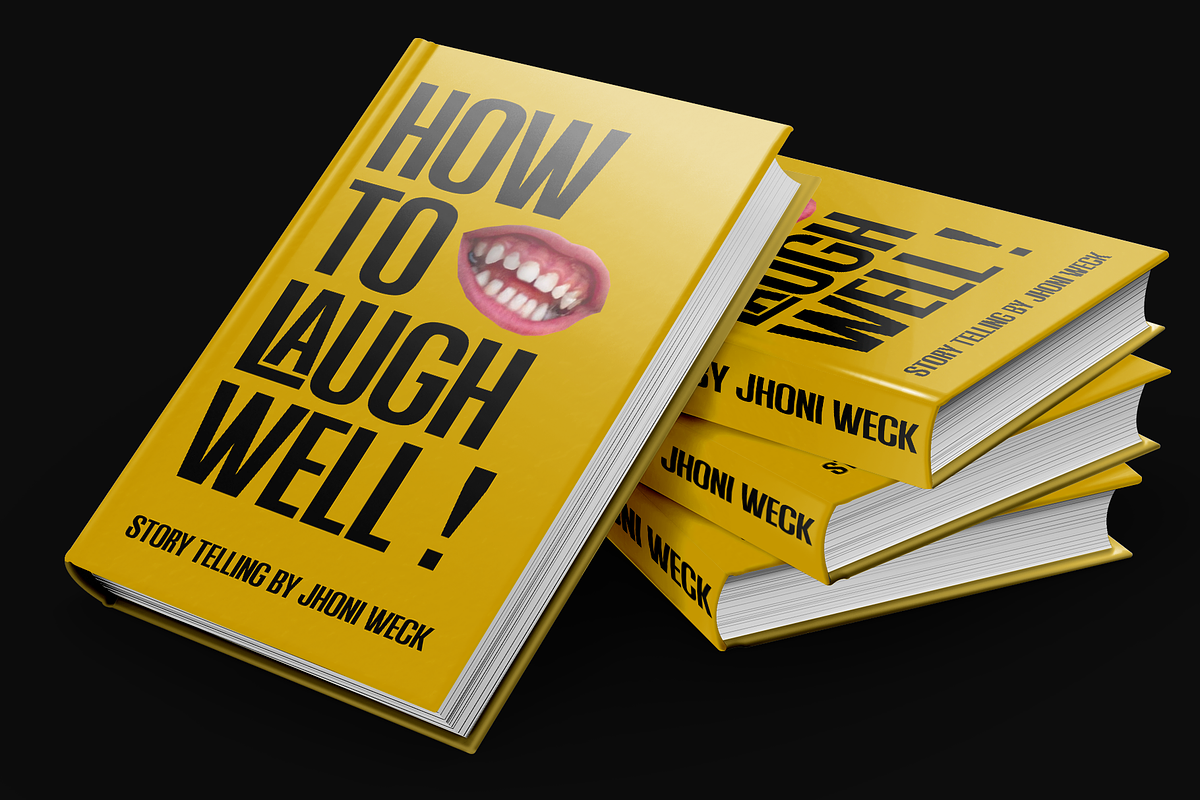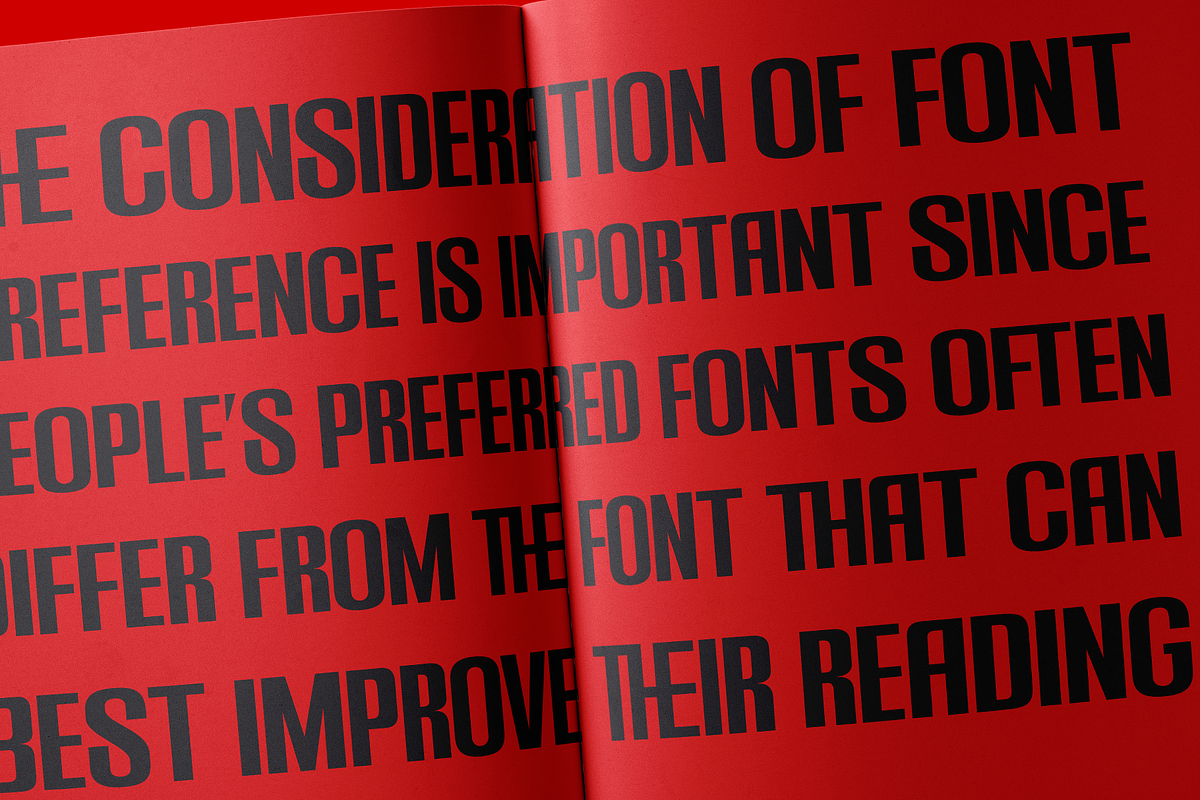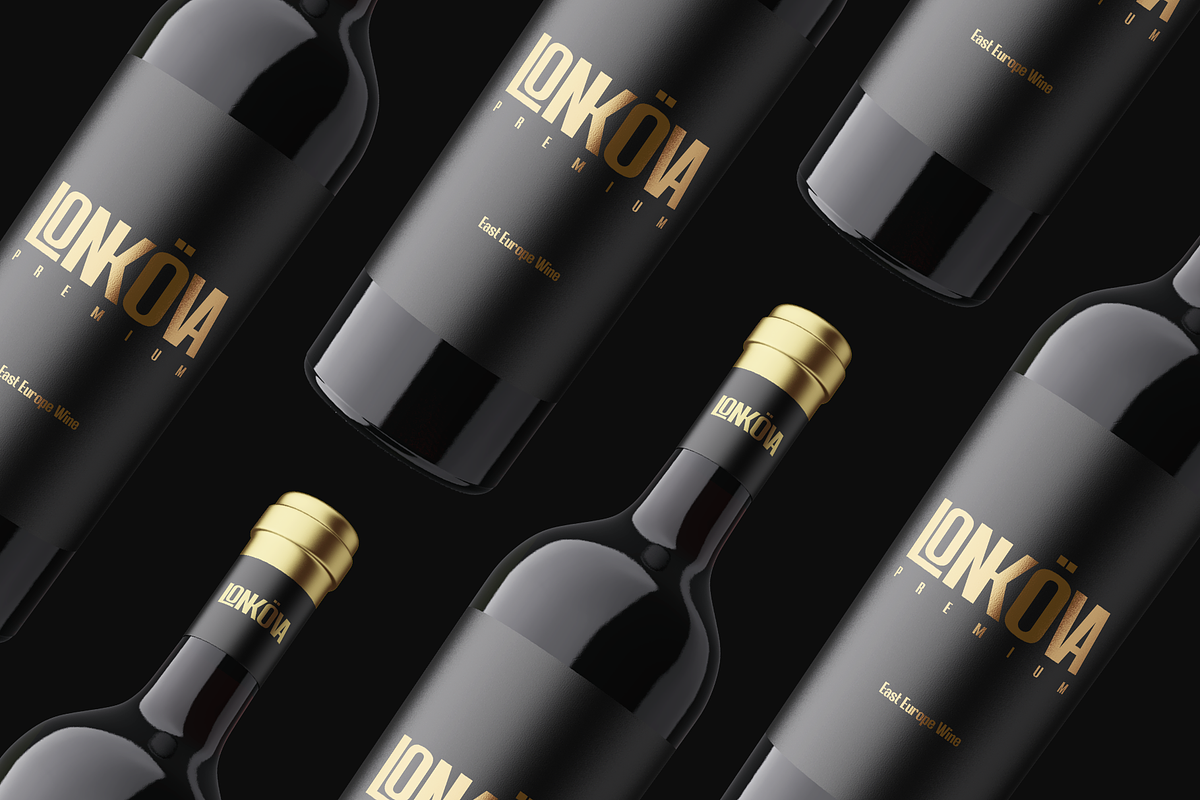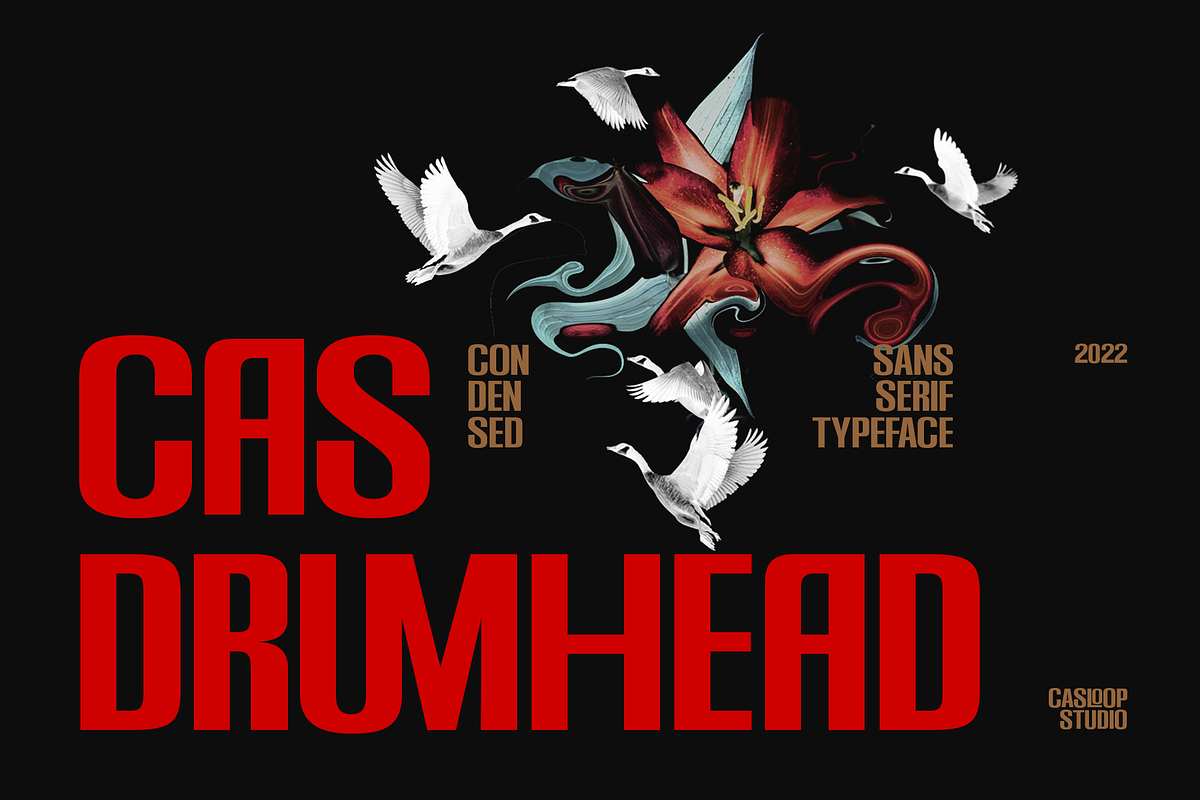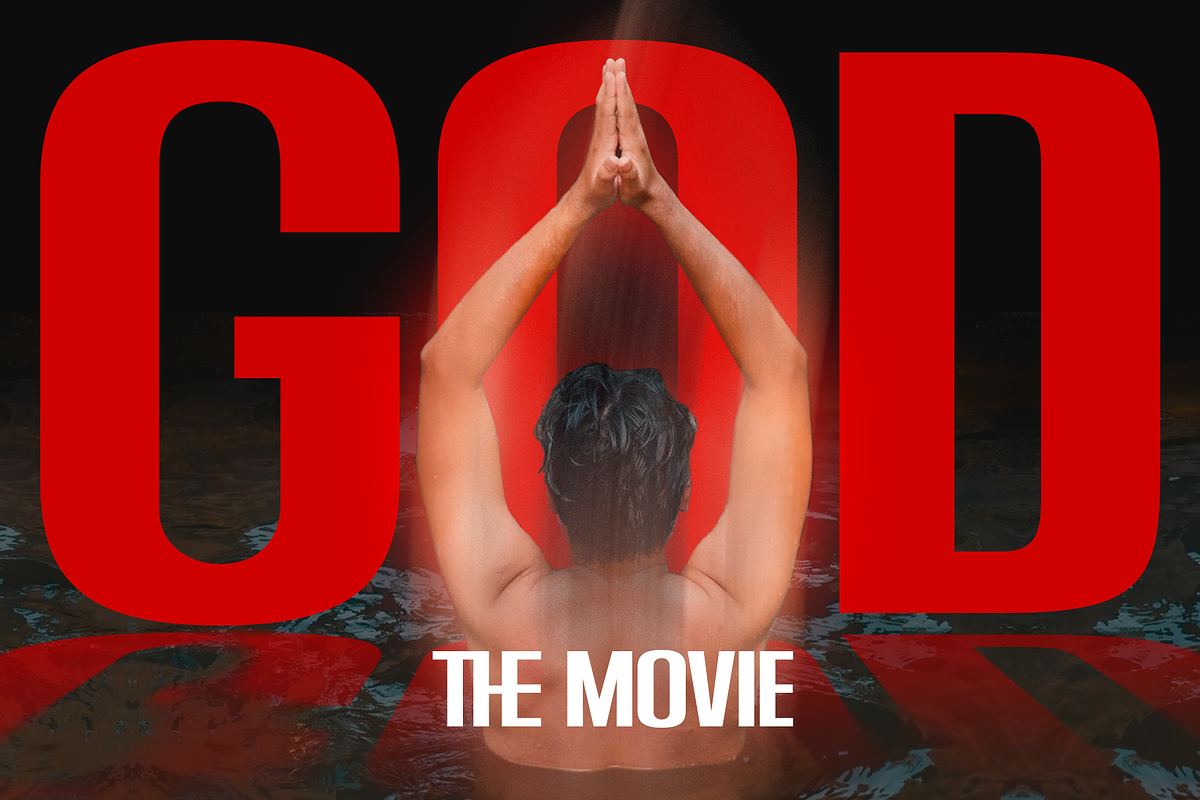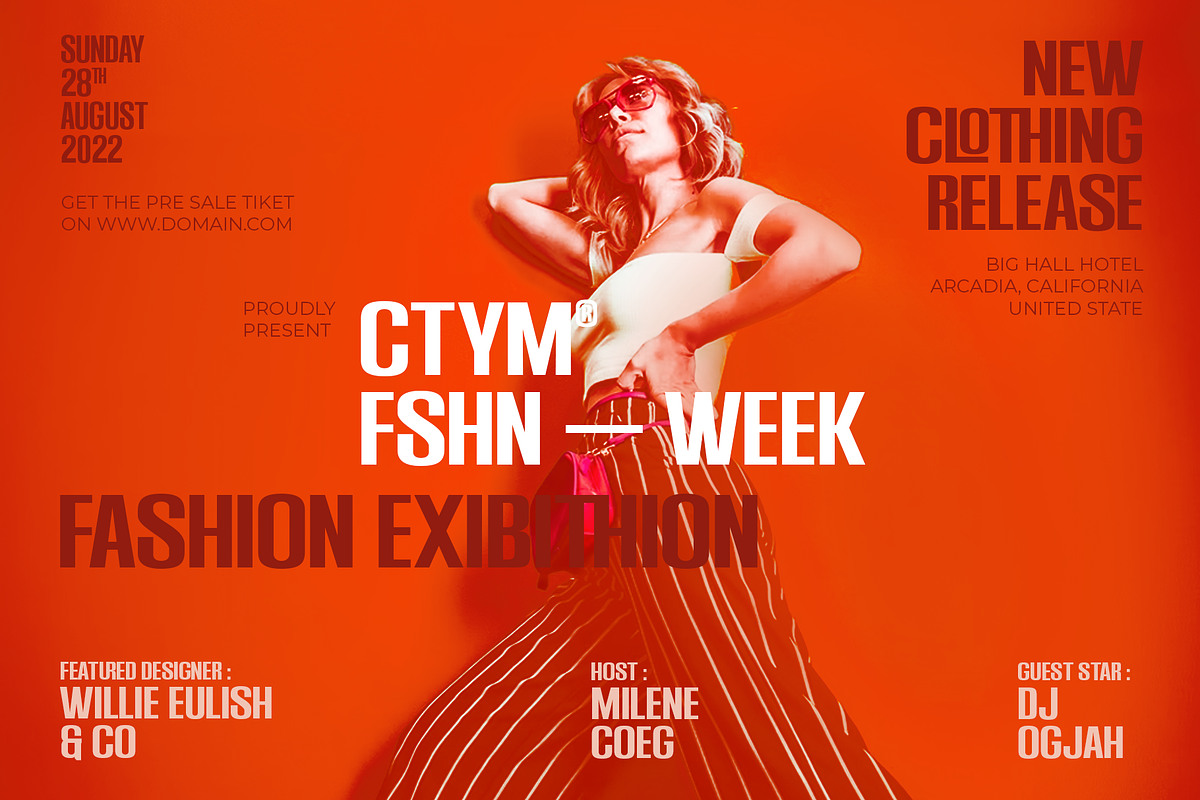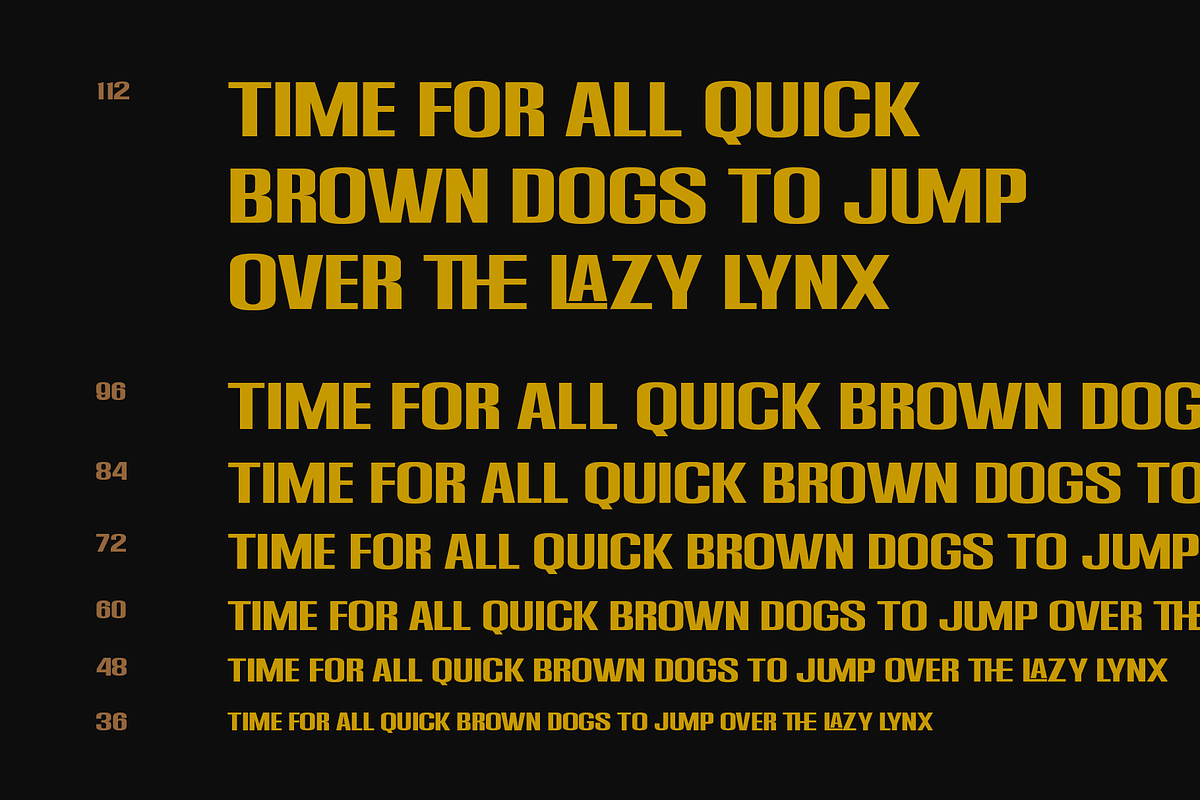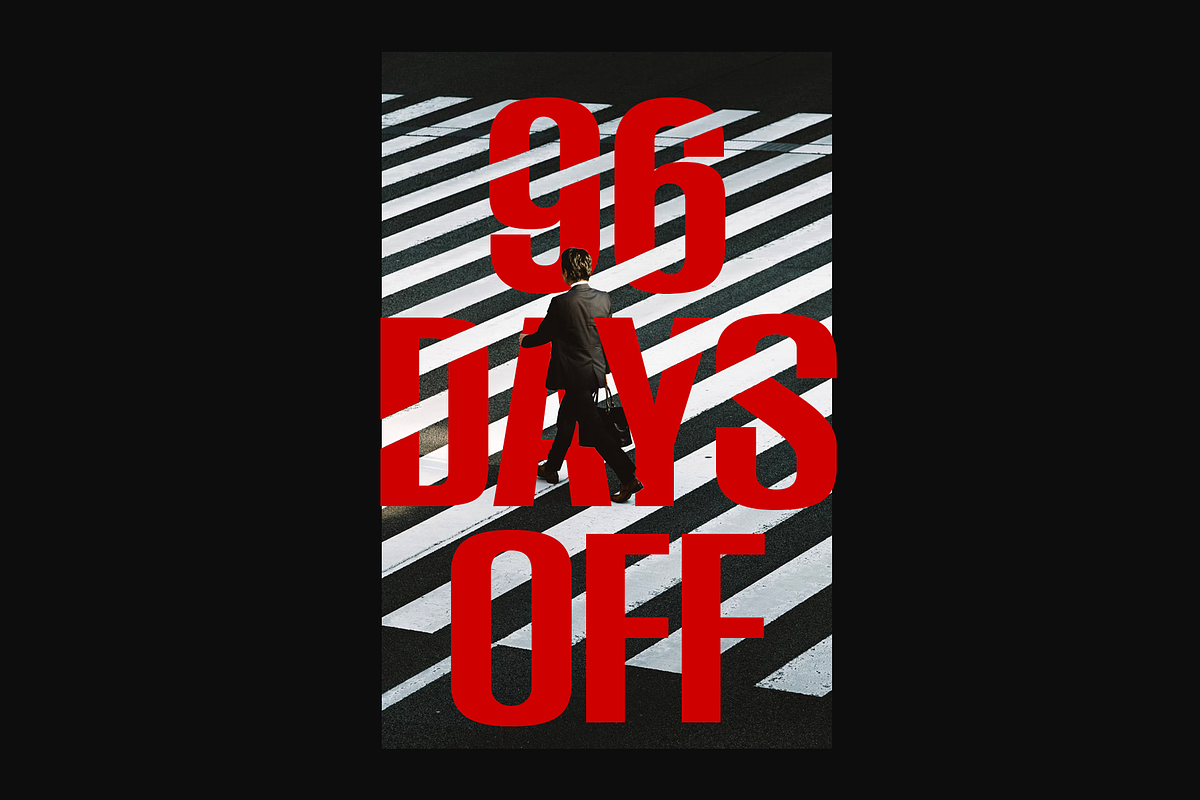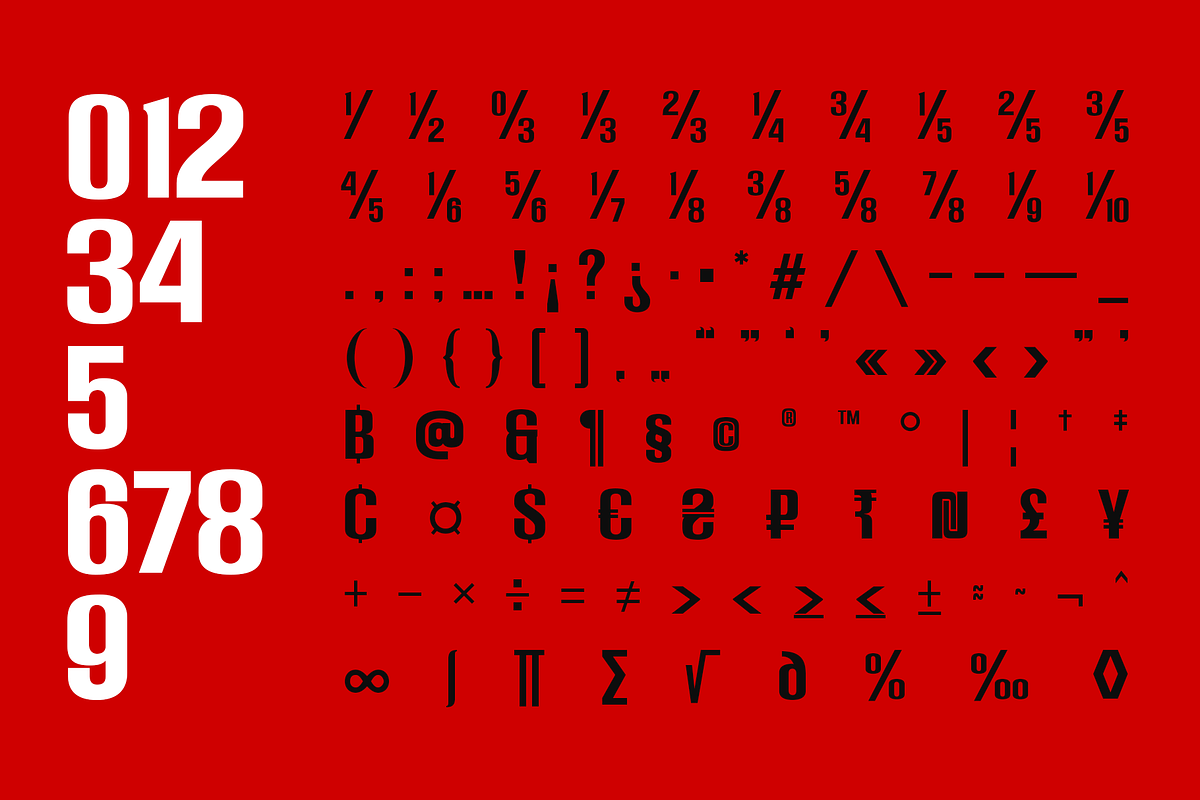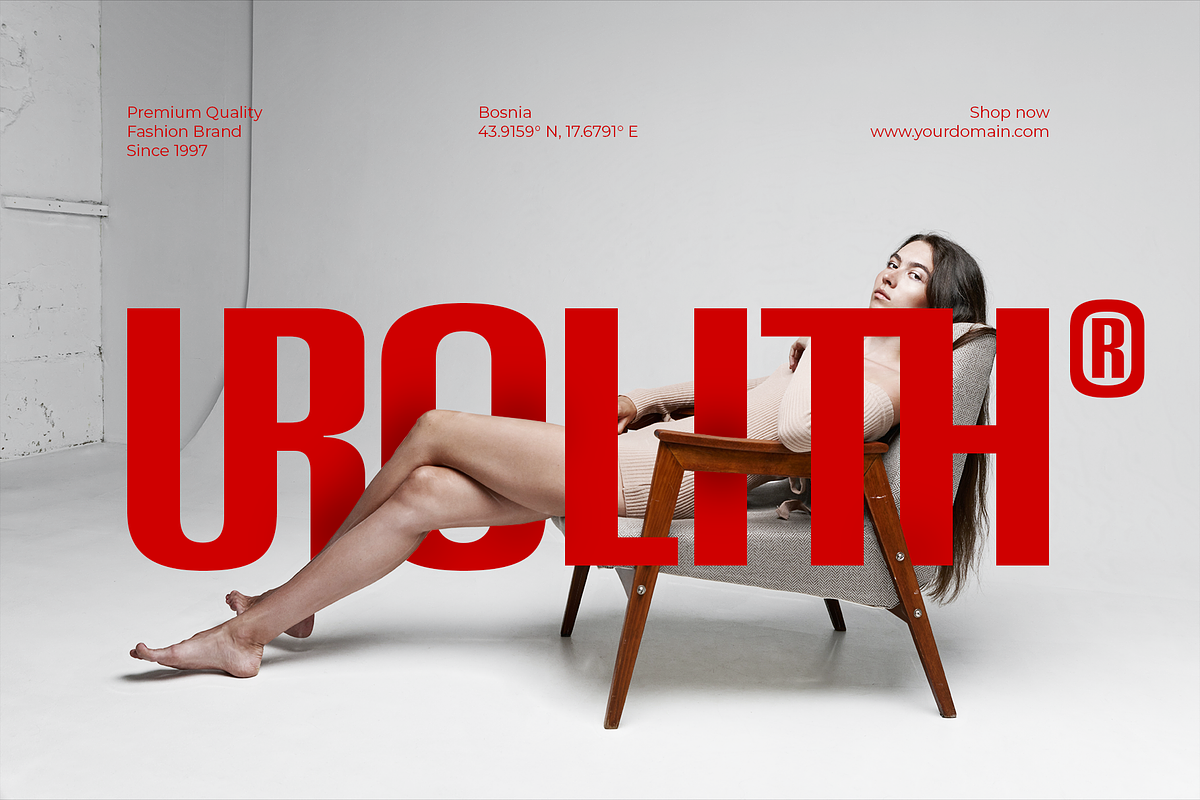
Cas Drumhead Display Condensed
The condensed san serif typeface, with solid thickness and proportional ligature. It makes Cas Drumhead a strong display font as the main design element. It is affiliated with other details such as images, illustrations, and even different typefaces for the body text section of the paragraph section. Balance the layout design that is attractive and outstanding. Other notable features such as stylistic sets that are appropriate and functional are put forward in this typeface. A Dashing and sexy impression like an alpha female with solid passion, principled, uncompromising, but exciting.
Support multi-Latin language. With hundreds of consistent glyphs in a single font system.